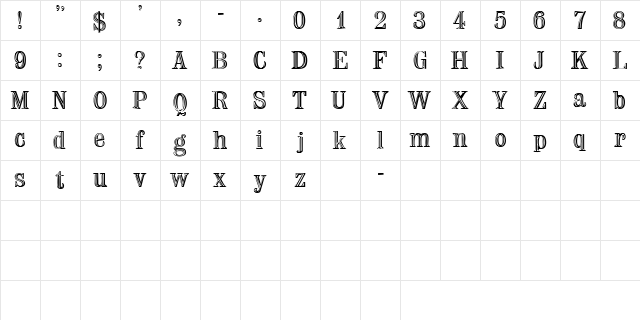
TrixSSK Regular
Design Context for TrixSSK Typeface
TrixSSK takes a measured approach to typography — its balanced proportions and neutral character make it a reliable workhorse for both digital and print work.